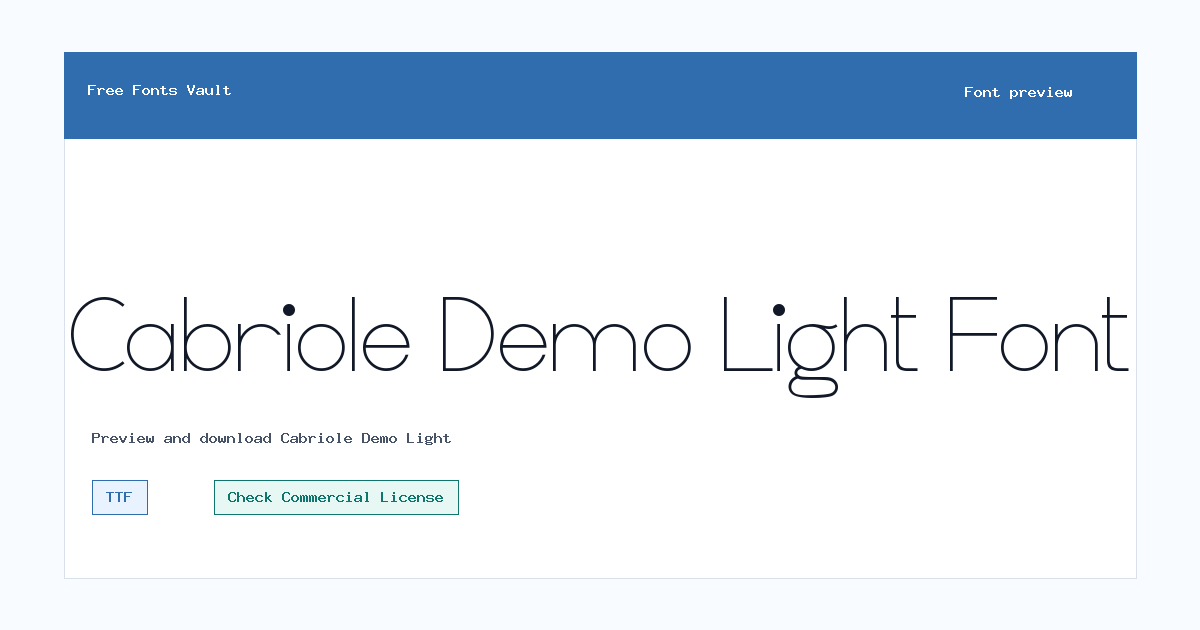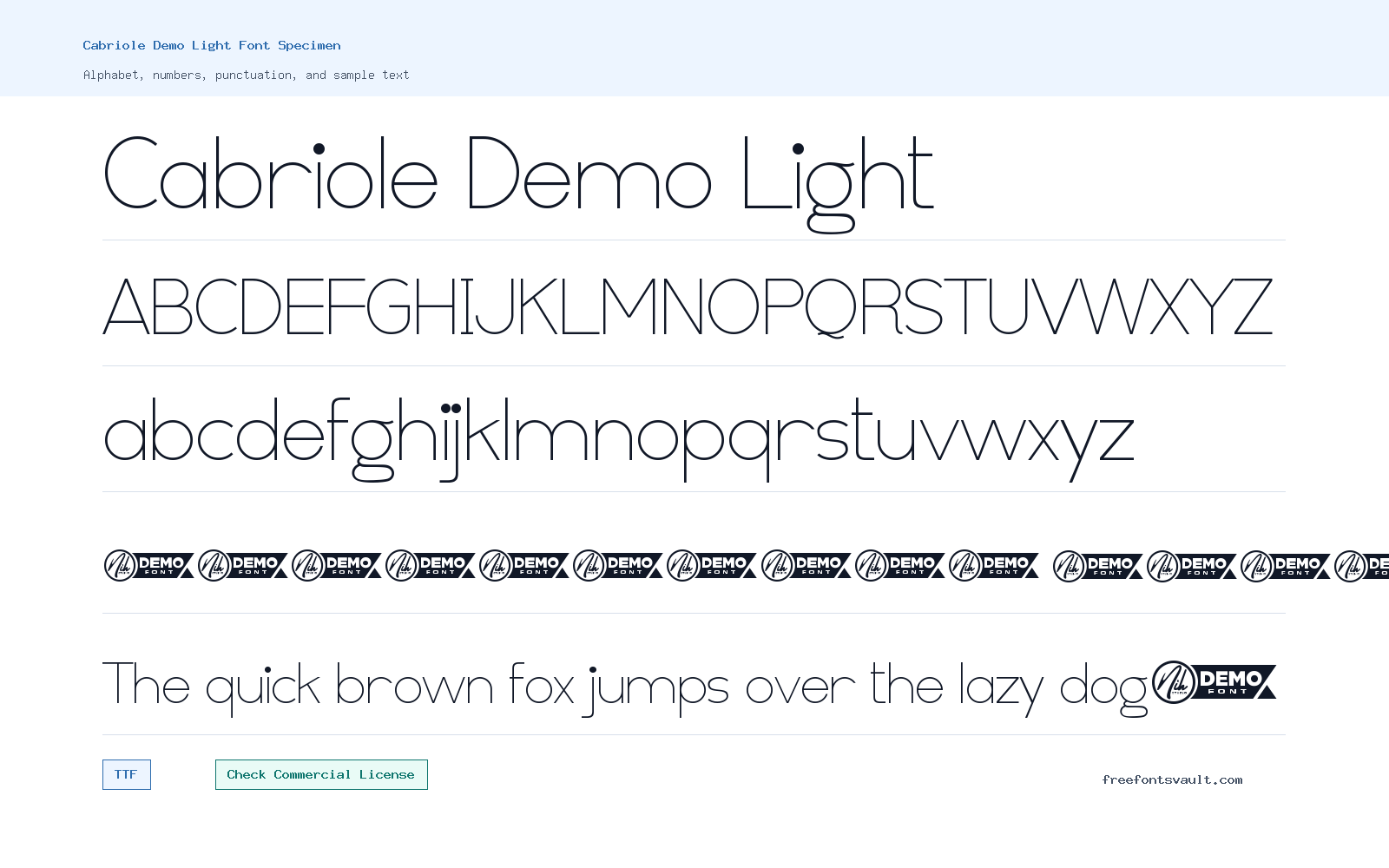
Cabriole Demo Light
- Designer Widiyanti & Suci Anita
- Foundry NihStudio
Cabriole Demo Light font.
Cabriole Demo Light is a light-weight TTF font from NihStudio, credited to Widiyanti & Suci Anita. It is marked for personal, non-commercial use, so it is best treated as a trial or personal project font unless you obtain the proper license.
Cabriole Demo Light is the light style of the Cabriole Demo Light family, with a normal font style and a listed weight of 300. That lighter weight can work well when you want a softer text appearance rather than a heavy display face. Because the available file is a TTF font, it should be easy to install and test in common desktop design apps, word processors, and preview tools.
Use the live preview to check spacing, punctuation, numbers, and the exact words you plan to set. Light fonts can look elegant in short text, but they may lose clarity at very small sizes or on low-contrast backgrounds. Try it for names, headings, invitations, quotes, personal graphics, or simple social designs, then compare it at the final size before using it in a finished layout.
Cabriole Demo Light should be treated as a light demo style, not as a full commercial family. It is better for testing the tone of a heading, invitation line, logo draft, or elegant display word than for locking a finished client project.
- Light 300 weight with normal style
- Demo font suitable for previewing the Cabriole look
- Personal invitations and greeting designs
- Short headings or name-based layouts
- Quote graphics and simple social posts
- Testing a light display style before licensing
Cabriole Demo Light is credited to Widiyanti & Suci Anita, with NihStudio listed as the foundry.
What is Cabriole Demo Light best used for?
It is best tested in short personal designs such as headings, invitations, quote graphics, and name-based layouts where a lighter text style is useful.
Should I use this font for long body text?
Test it first. The listed weight is 300, so it may be better for short text than dense paragraphs, especially at small sizes.